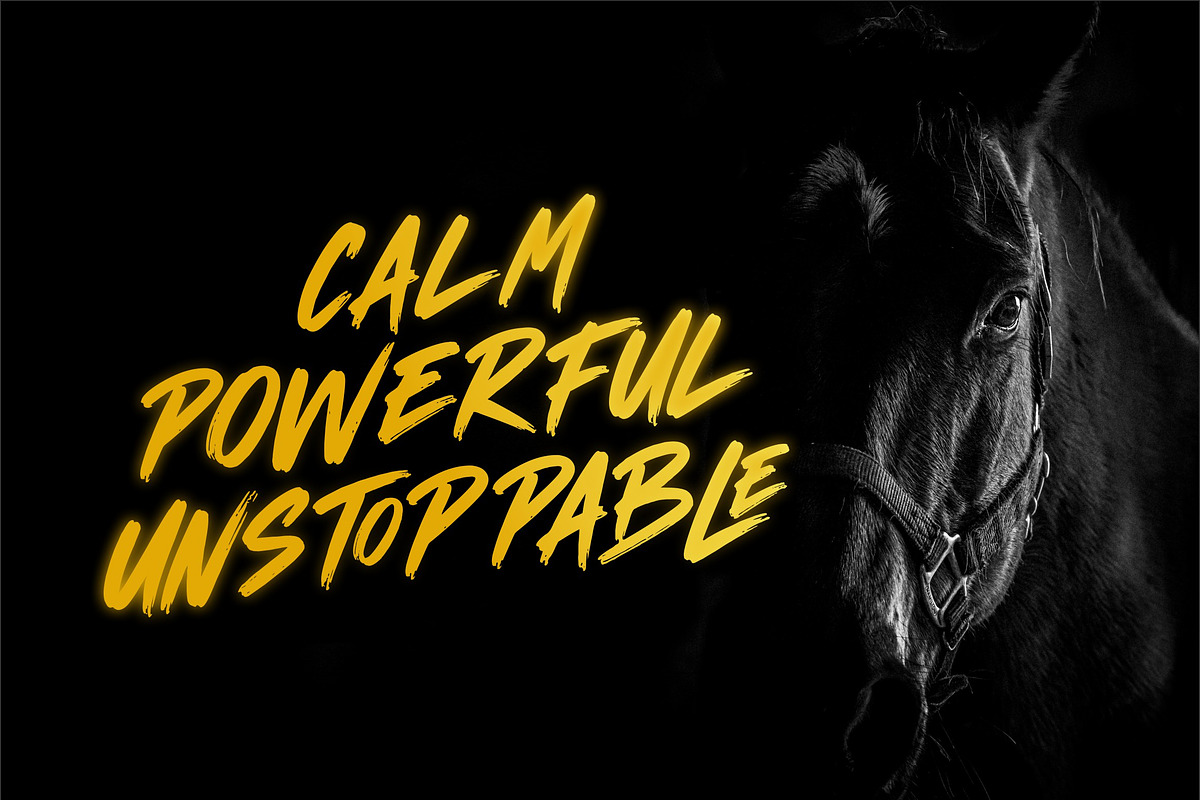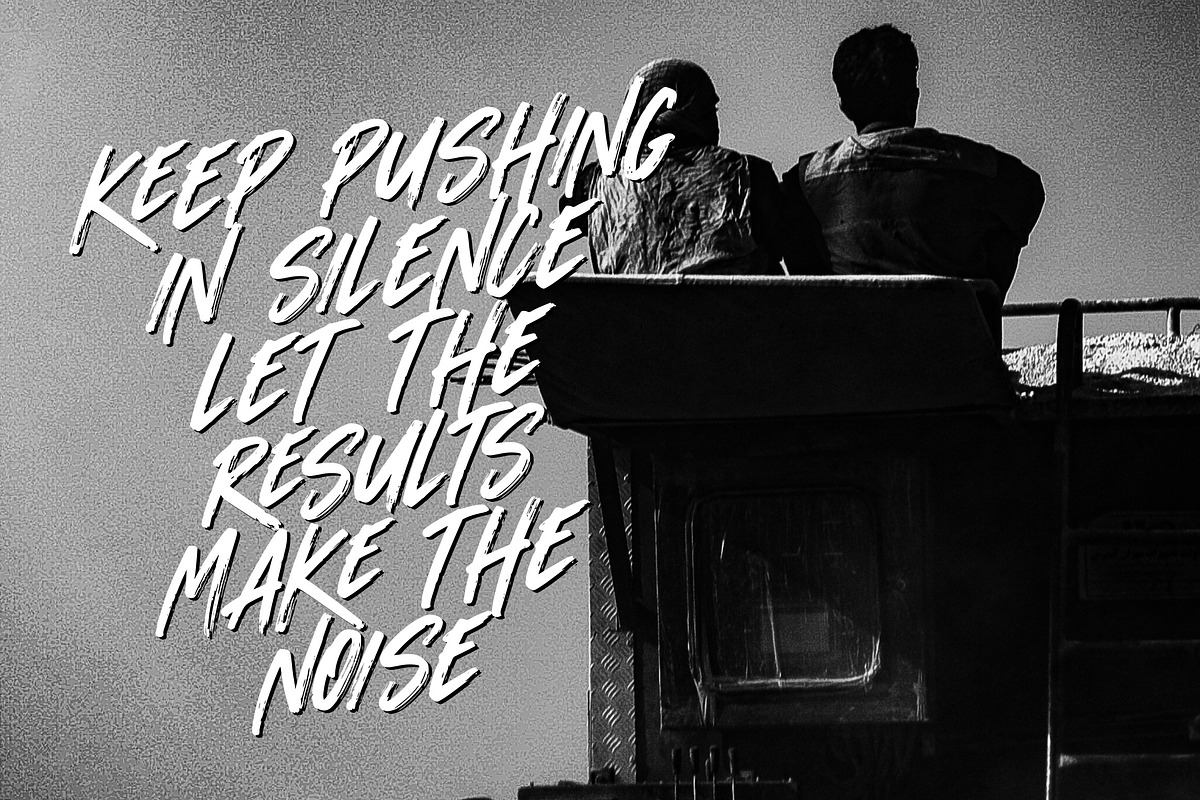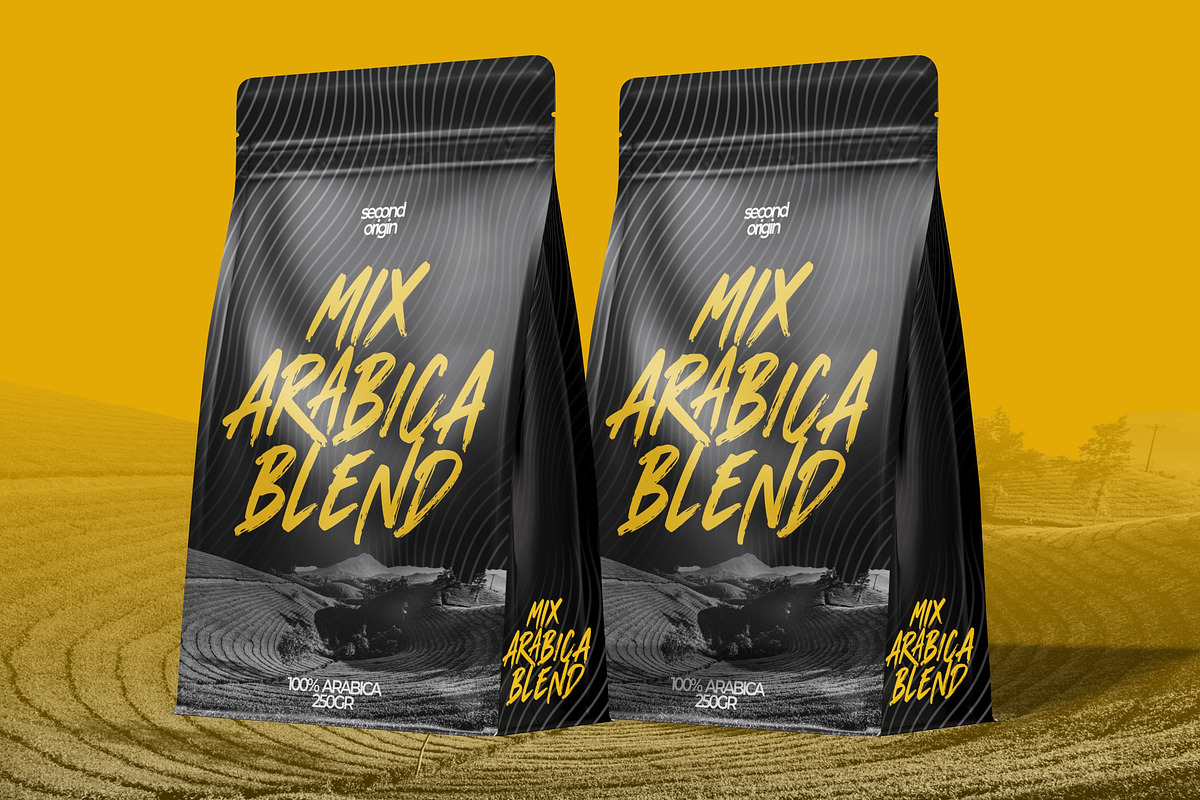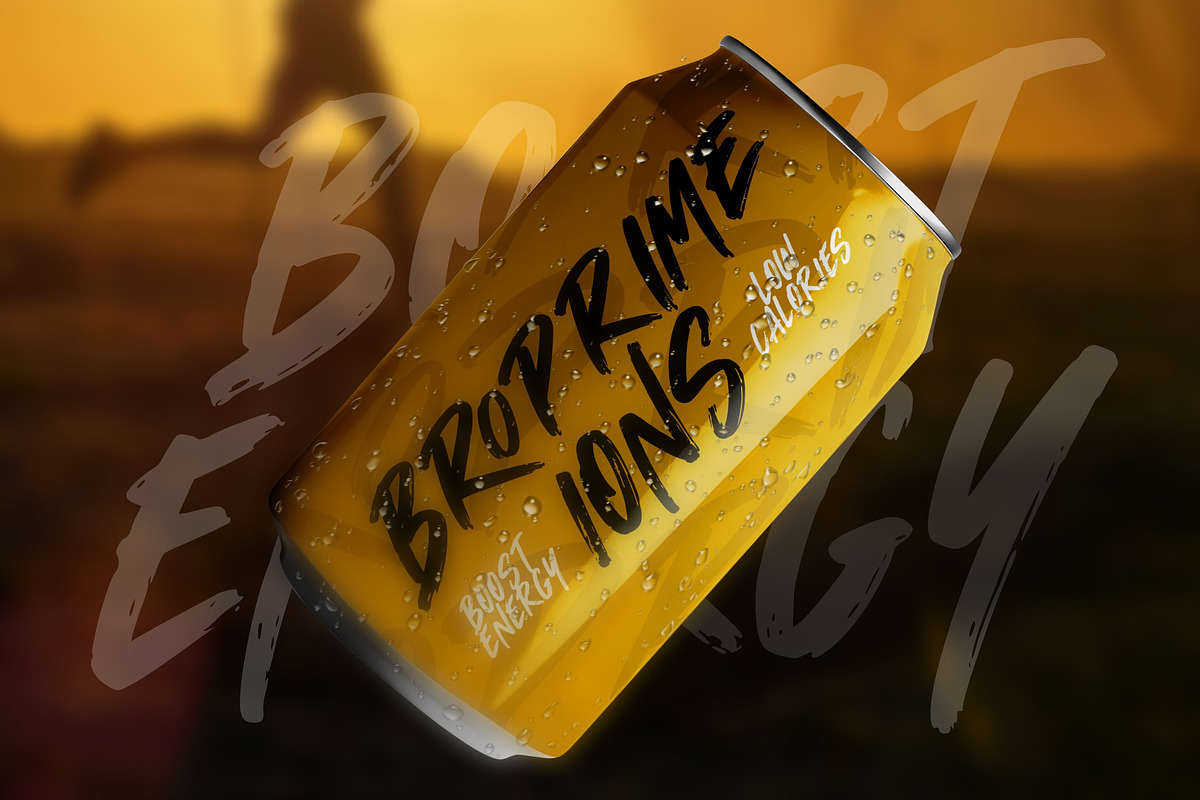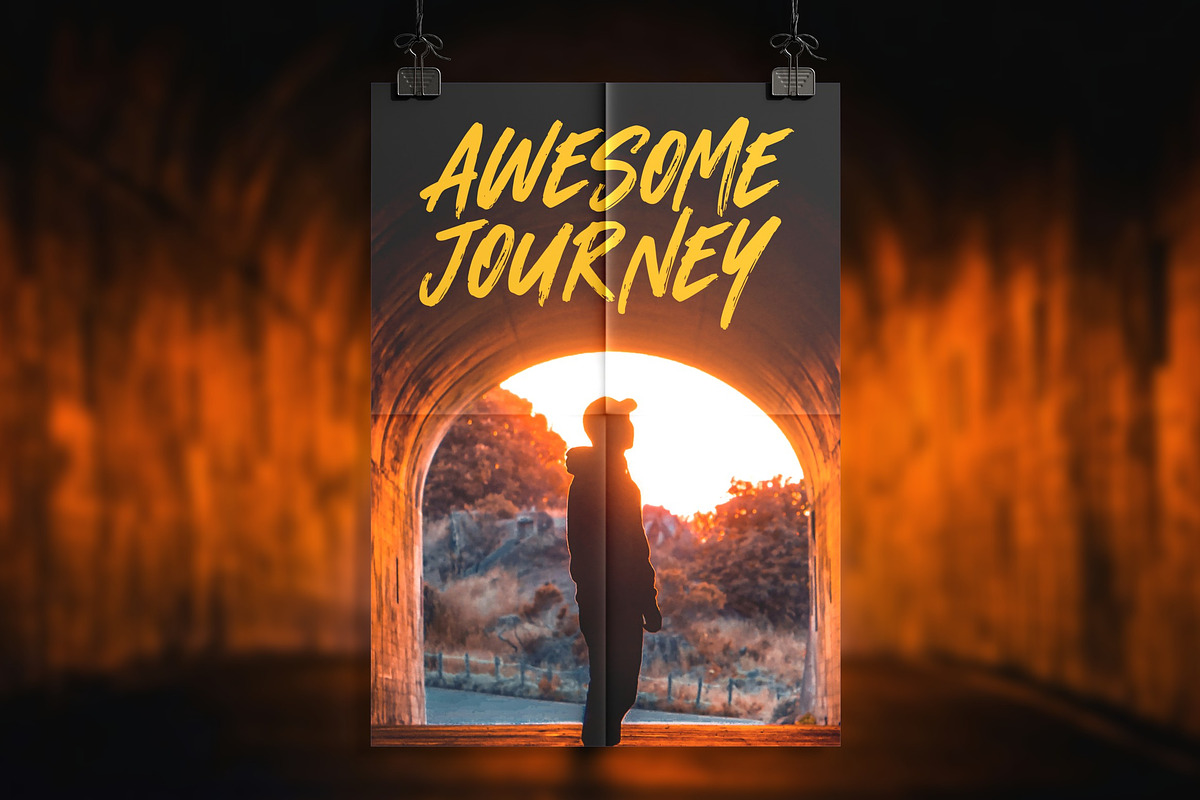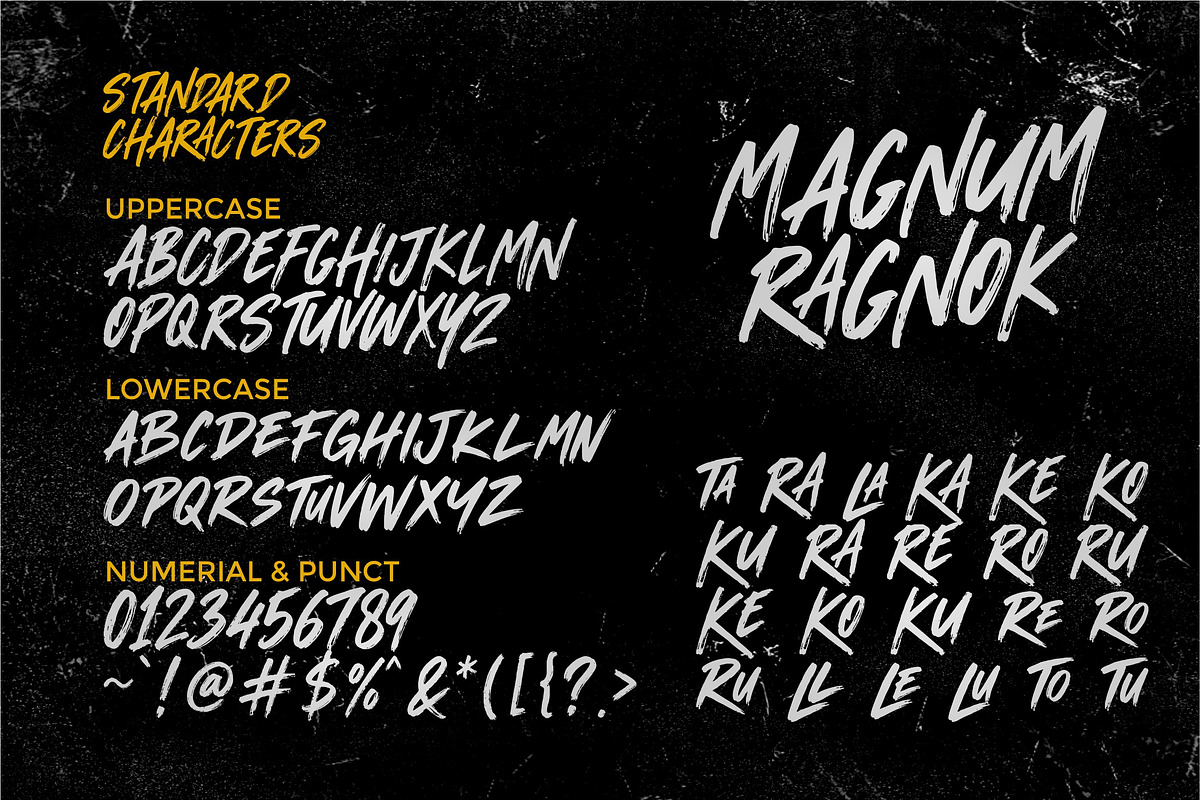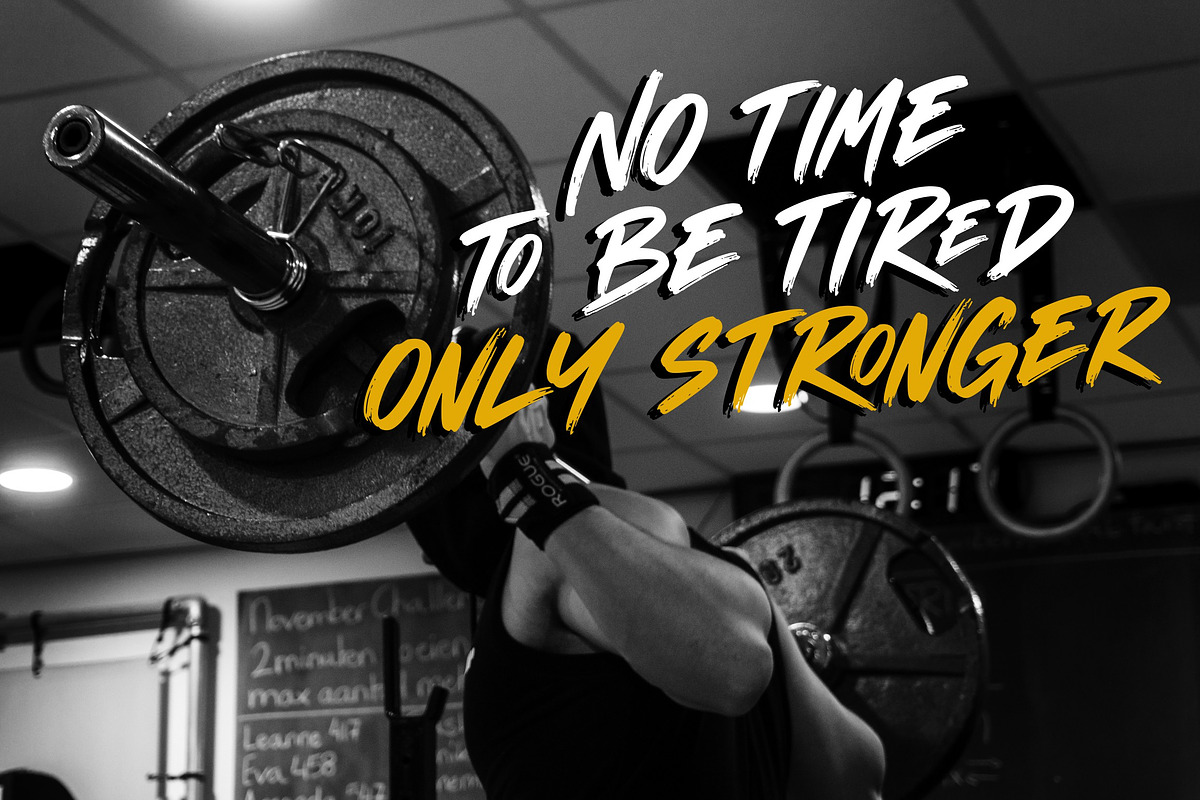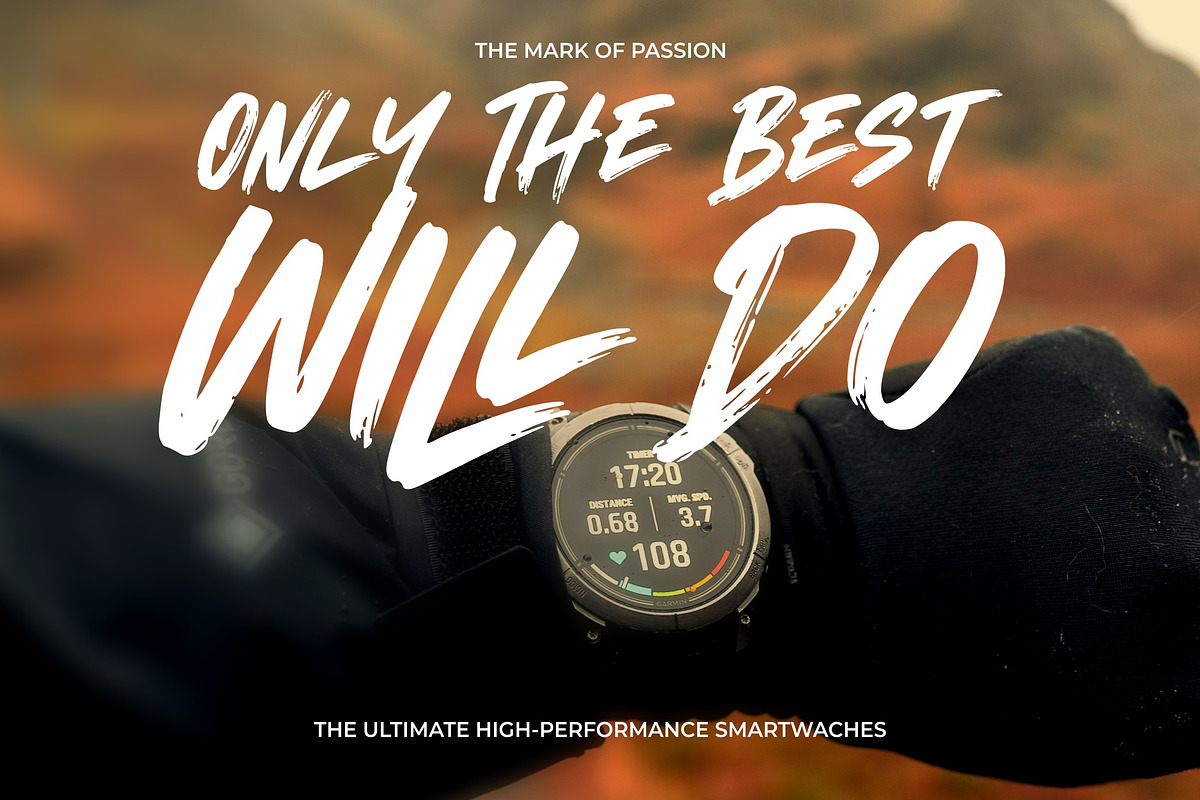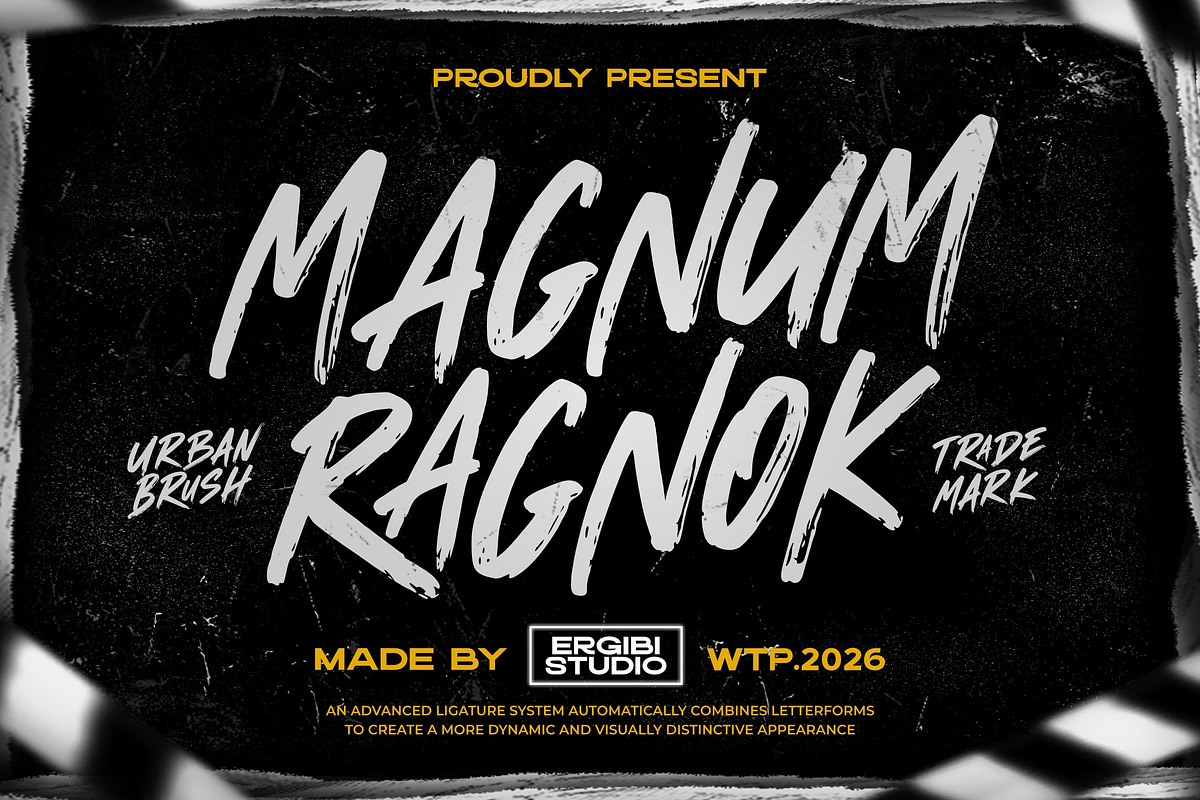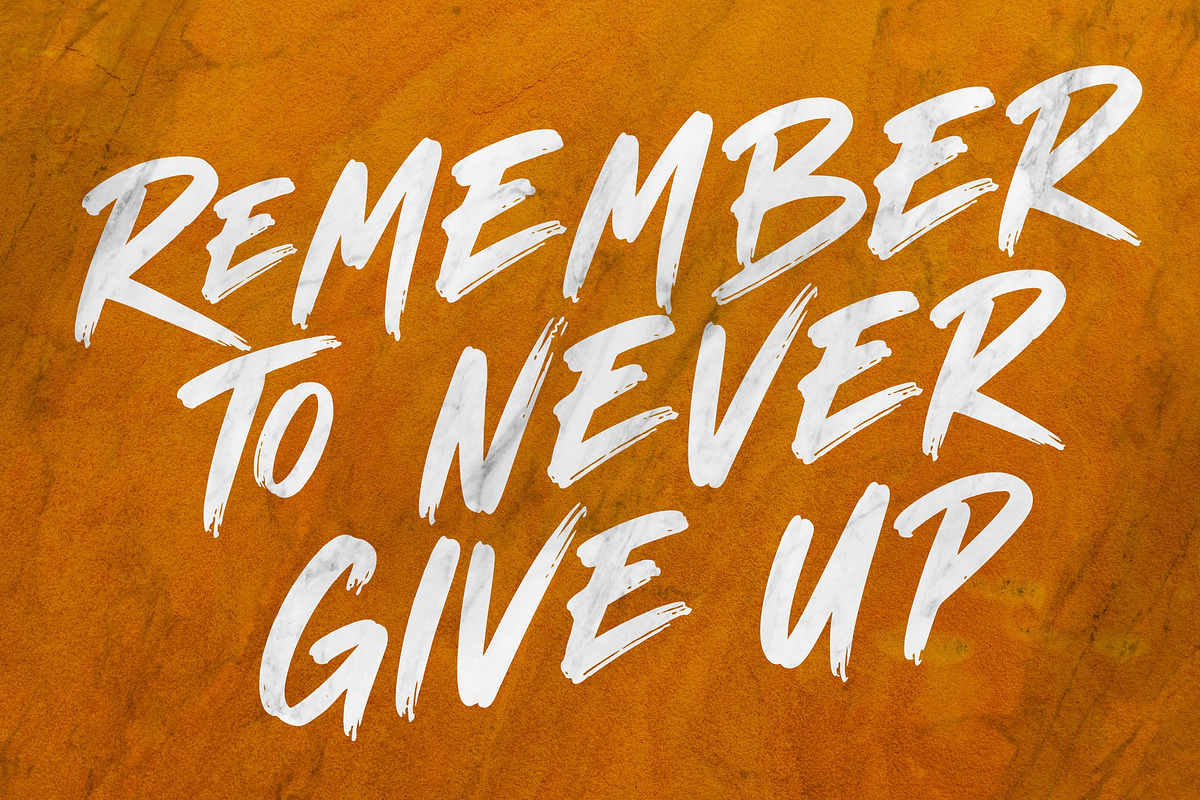
Magnum Ragnok - Urban Brush
Magnum Ragnok is a bold urban brush font built to make a statement. Inspired by street culture, graffiti aesthetics, and handcrafted brush lettering, this typeface delivers raw energy with a strong, confident presence. Every stroke is designed to capture the authentic movement of a real brush, creating a rugged and expressive look that stands out in any design.
Featuring dynamic brush textures, sharp character forms, and an advanced ligature system, Magnum Ragnok automatically blends selected letter combinations to create a more natural, fluid, and visually striking appearance. The result is a font that feels handcrafted while maintaining excellent readability and impact.
Ligature